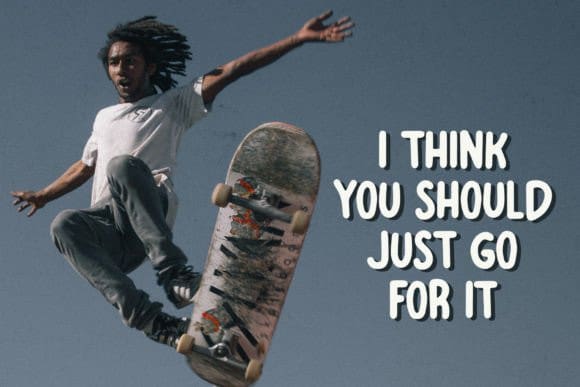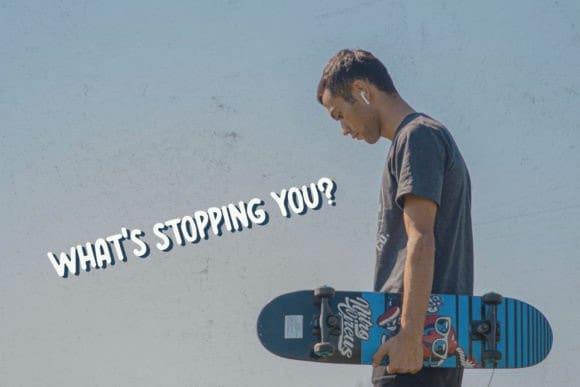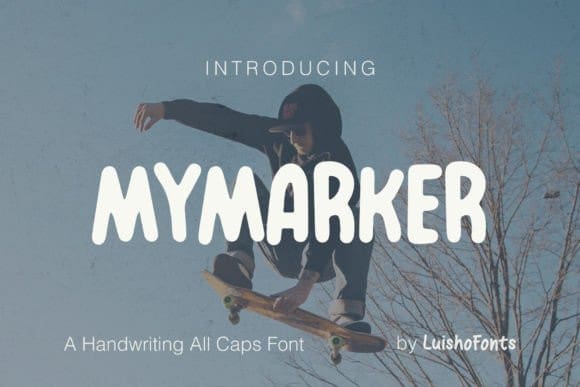
My Marker Font
My Marker Font is a fun and casual handwritten font. Its minimalist and friendly vibe can easily match your favorite designs such as book covers, magazines, social media posts, invitations, and so much more!